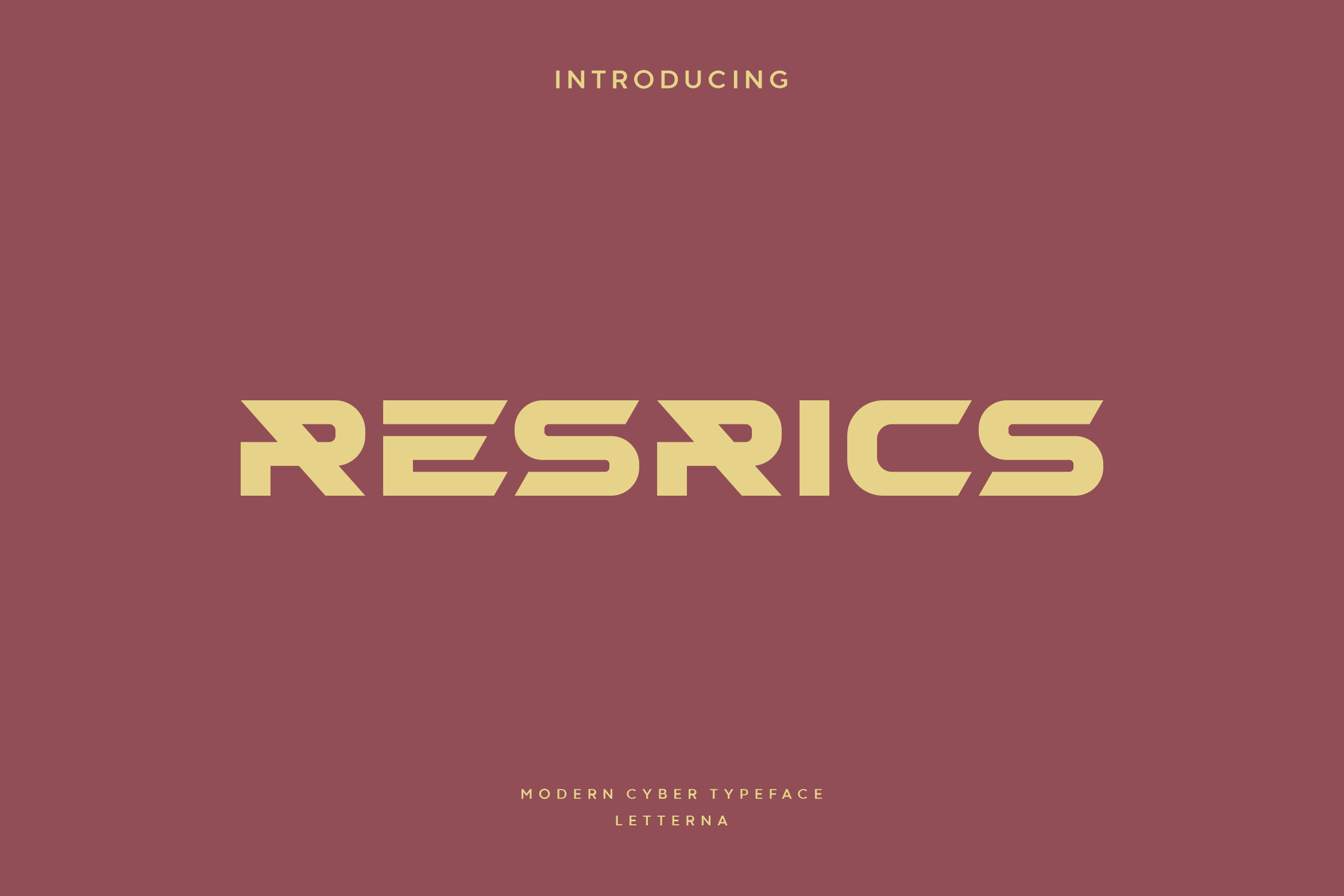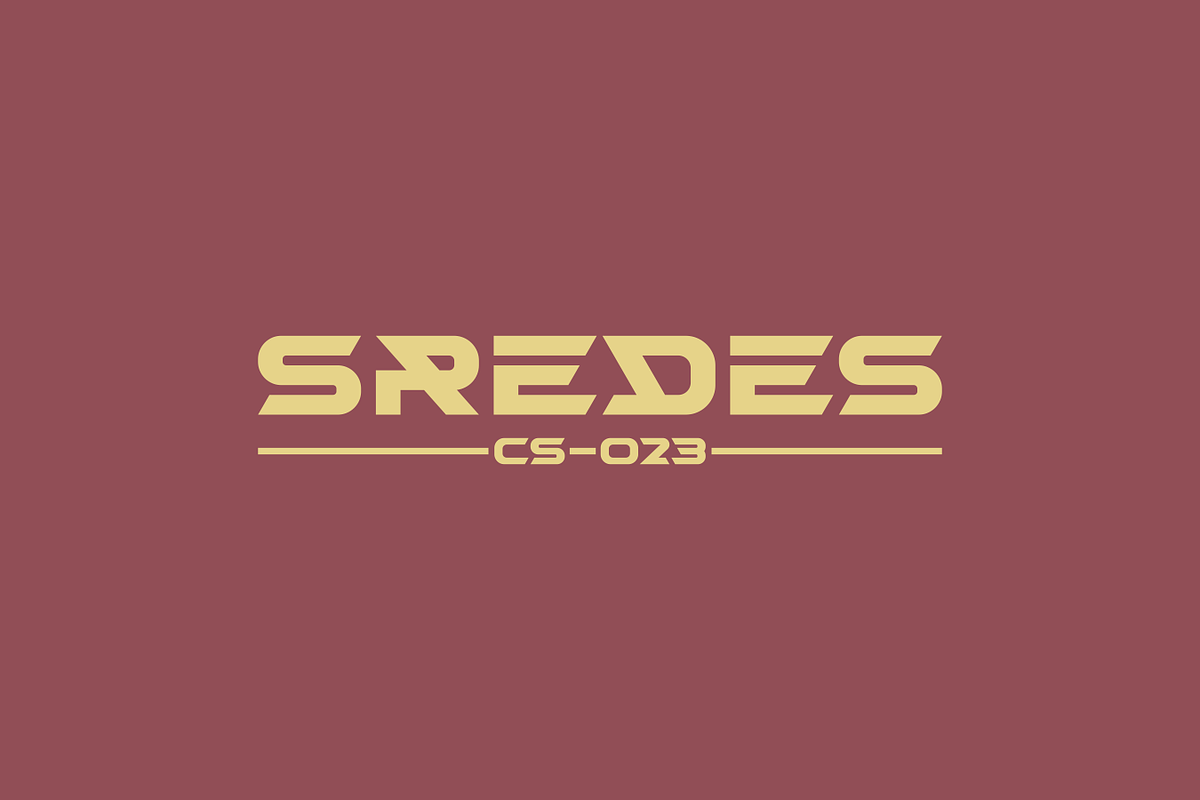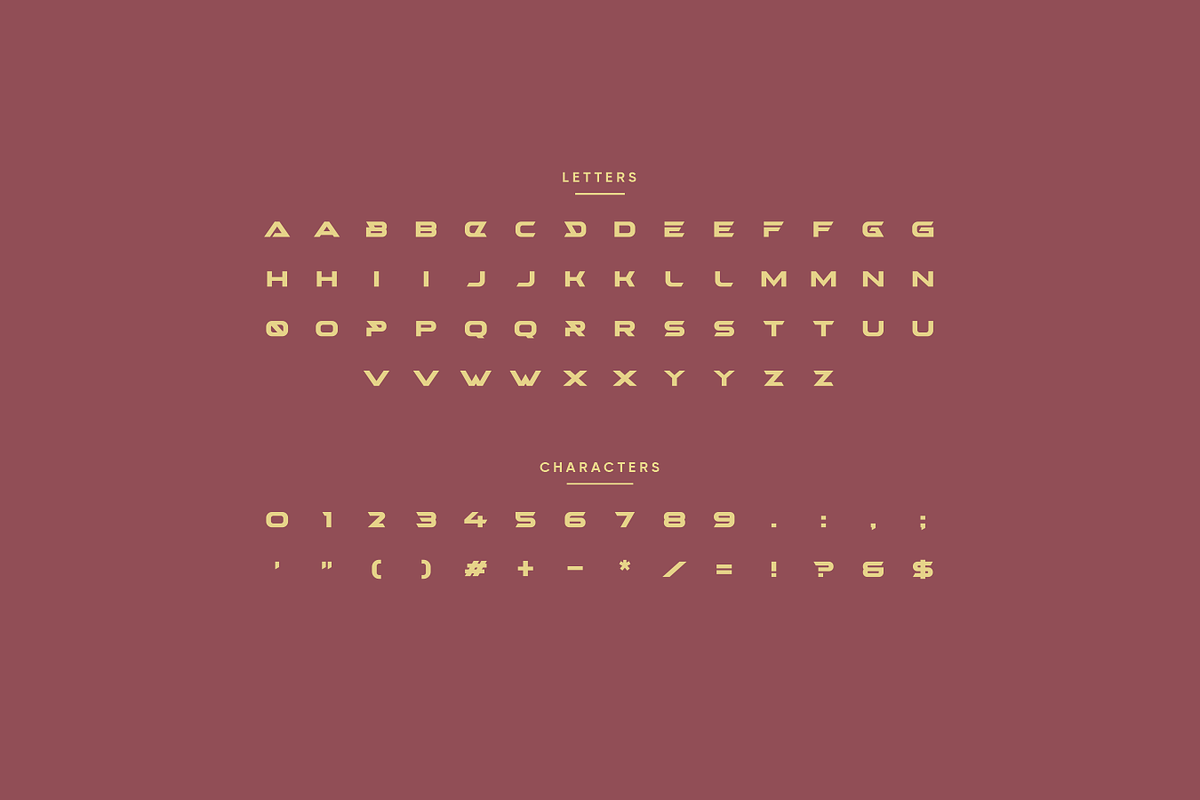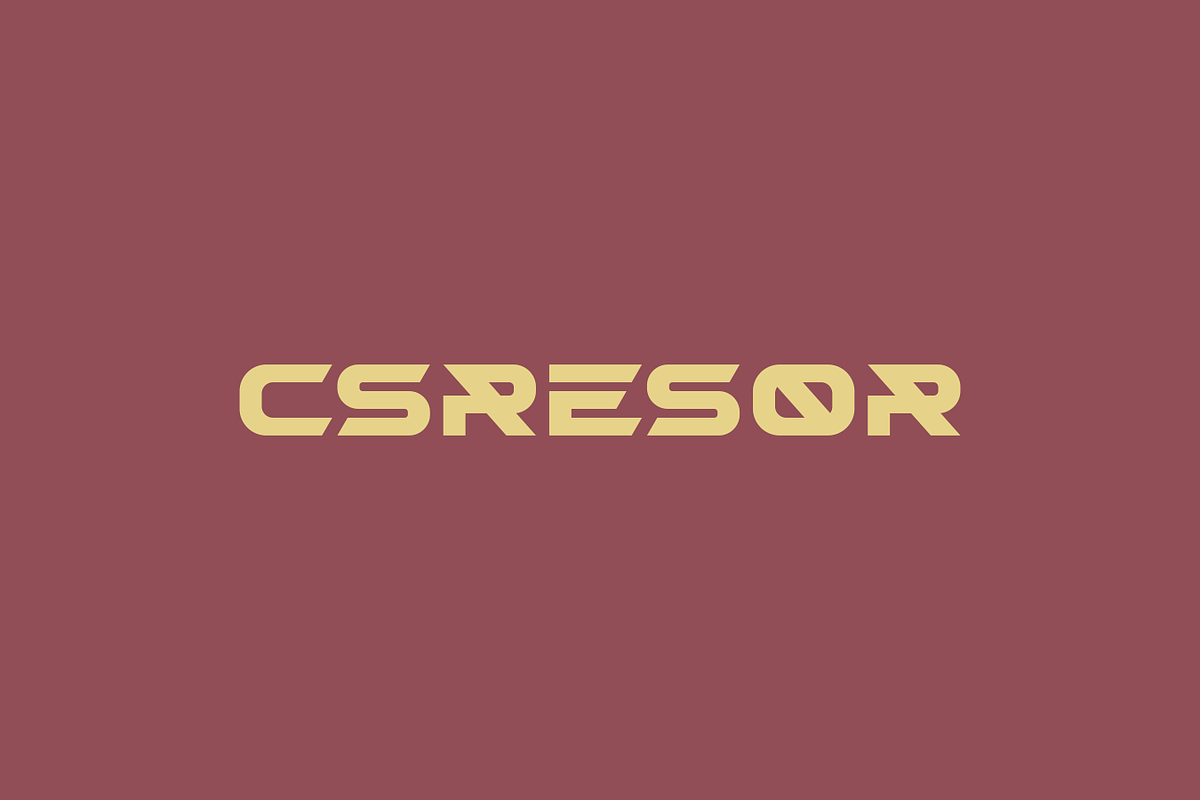
Resrics - Modern Futuristic Typeface
Resrics is a futuristic font that we designed with an original touch for your needs. This cool font comes with all-caps, numeric & symbols, this powerful and sophisticated font. Resrics is perfect for your logo, headline, typography, poster, magazine, brochure, packaging, websites and many more for your design needs, it will make your designs more cool and stand out.